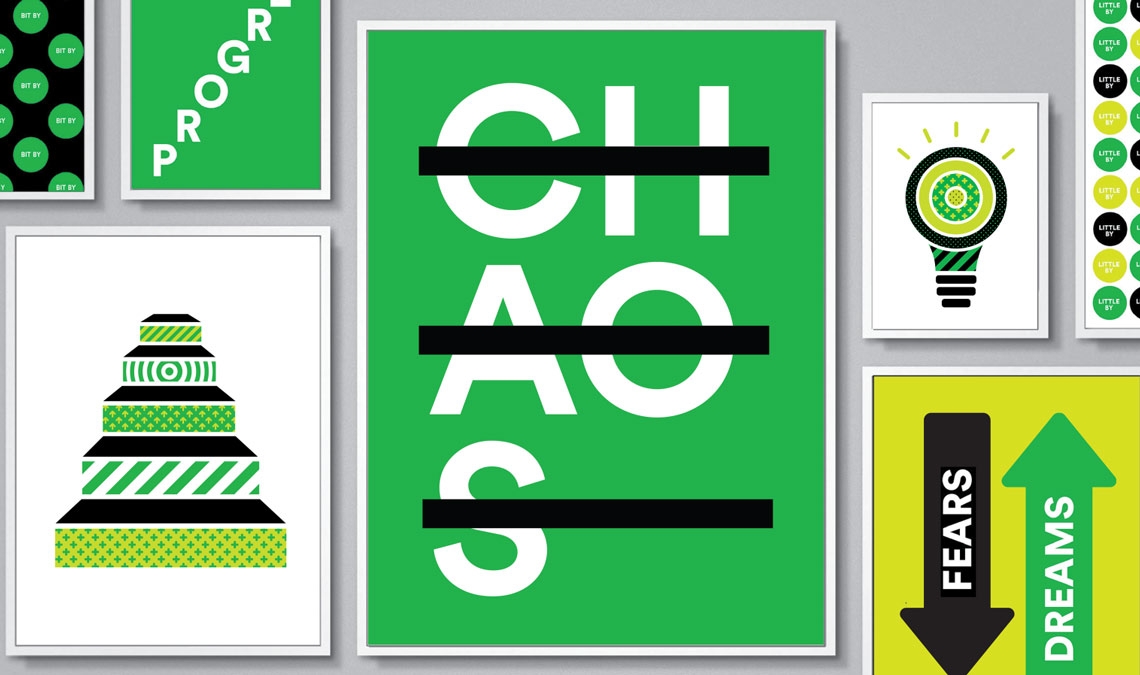
Evernote
Wolfgang Homola’s Soleil font used in Evernote’s rebrand
Evernote is an app that help users to focus on what matters, from domestic issues to academic studies. Every day it is used by over 225 million people around the world in more than 25 languages. In 2018 Evernote partnered with DesignStudio to rebrand the company and the app, from the logo to the UI. The new visual system echoes the brand DNA of ‘optimistic, clever, confident, and clear’.
The DesignStudio team chose Wolfgang Homola’s Soleil as the primary typeface for the website, communications, and promotional material, saying: “It’s a modern sans serif with a number of subtly interesting letter forms. It strikes the perfect balance between well-crafted and instantly recognizable, but also friendly and welcoming.”